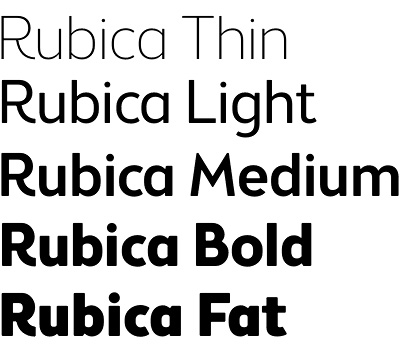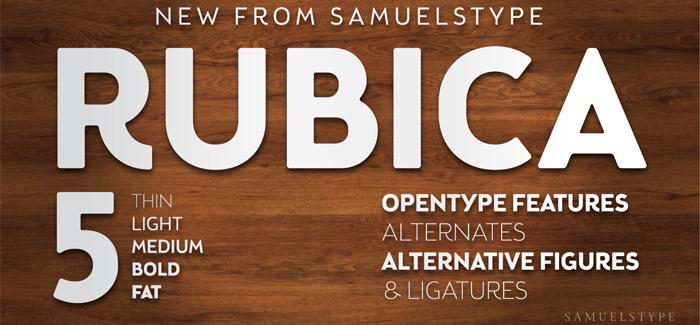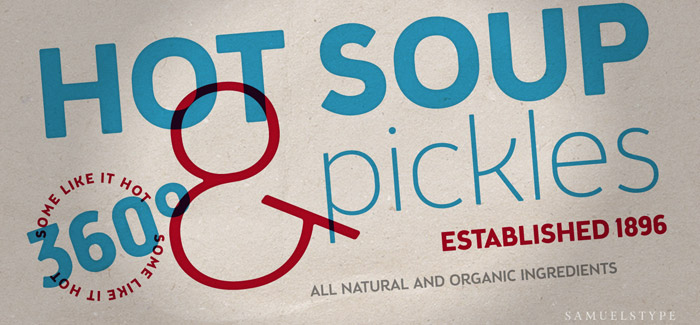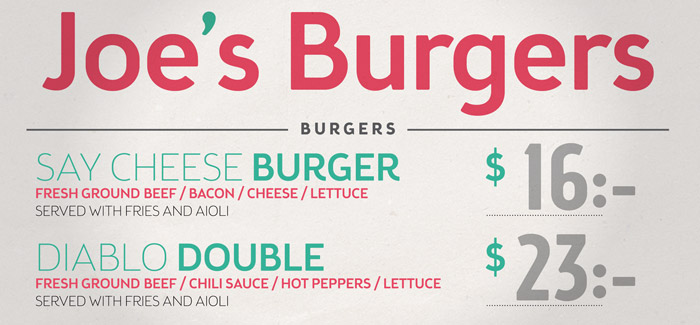
Rubica font
Rubica font is a sans-serif family based on geometric shapes, and designed by Hans Samuelson. The font family is mainly oriented on headline use but also offers excellent legibility in small sizes.
Originally drawn as a base for a headline font for one of the major Supermarket chains in Sweden, it has a warm and friendly tone. Figures are designed to make the pricing clear and legible.
Stylistic sets offers a more text-oriented alternative for some letters.